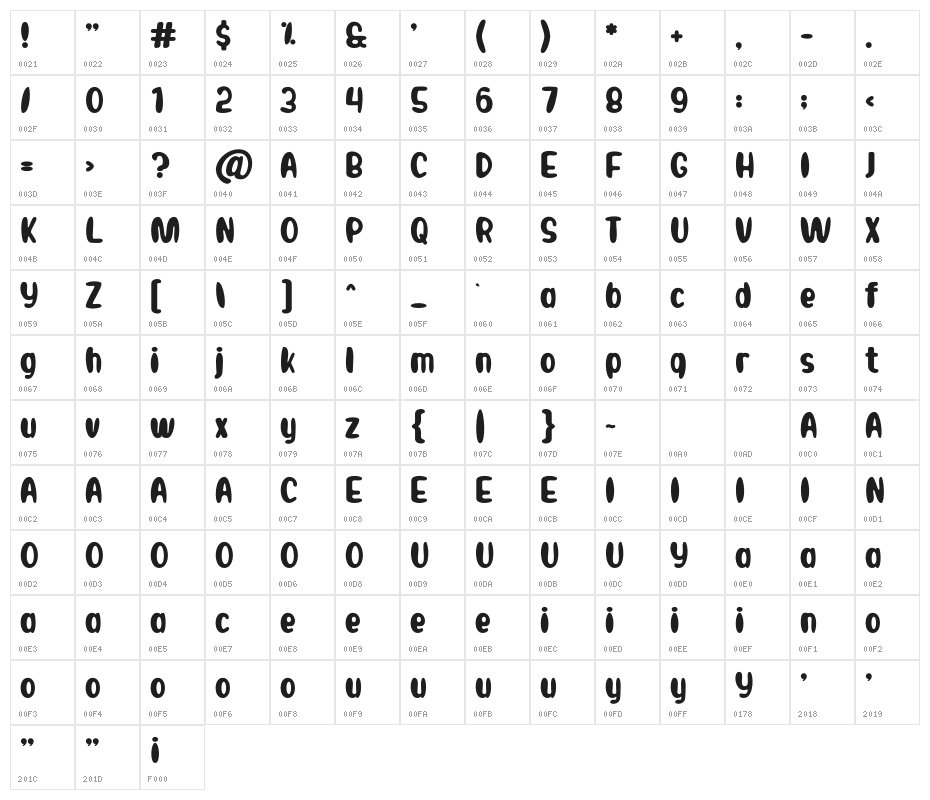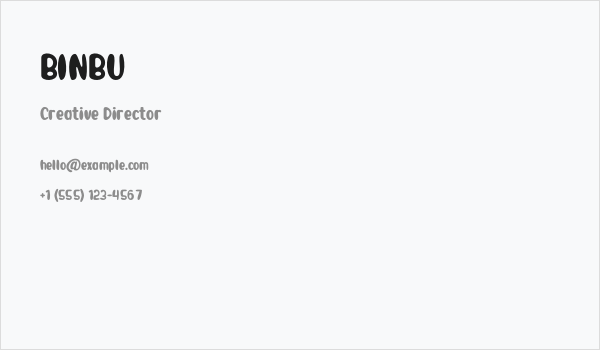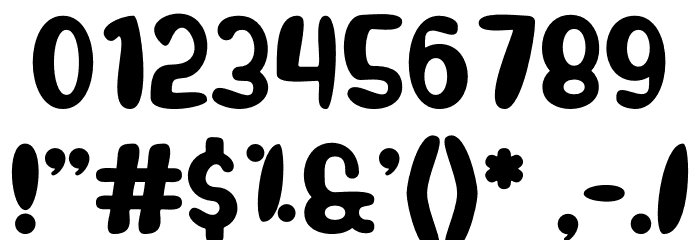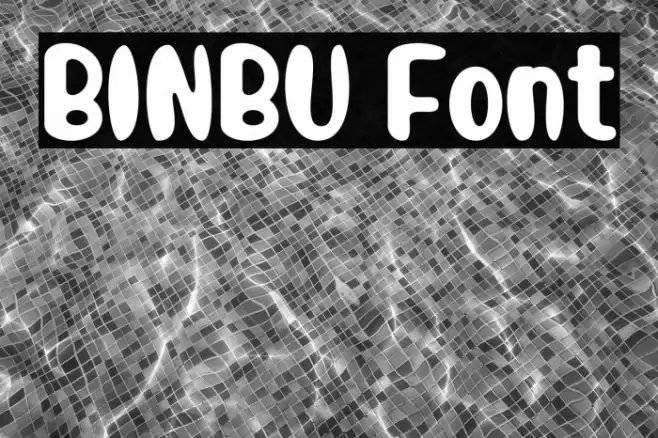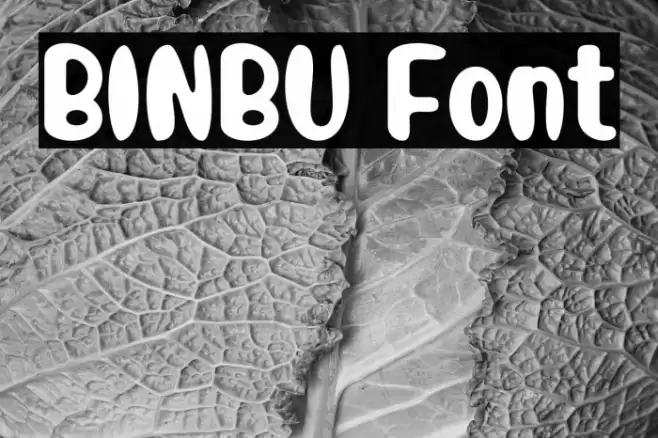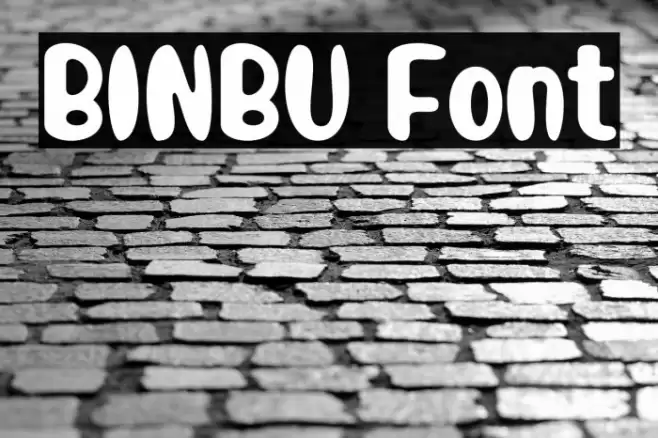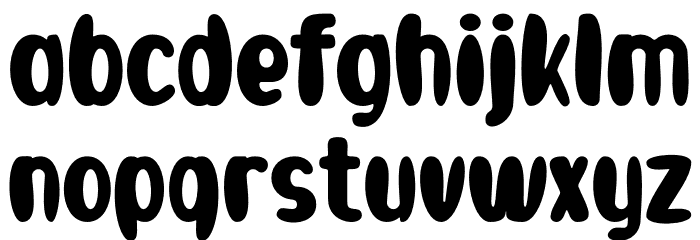
BINBU Font
BINBU Description
This playful and bold font features rounded, bubbly characters that exude a sense of fun and whimsy. The letters are thick and have a uniform stroke width, giving them a bold presence on the page. The rounded edges and slightly irregular shapes add a touch of informality, making it ideal for creative and casual applications. The numbers and special characters maintain the same playful style, ensuring consistency across all text elements. This font is perfect for projects that require a friendly and approachable aesthetic.
| Overall Style | Playful, Fun |
| Proposed Projects | Ideal for children's books, playful branding, party invitations, and casual social media graphics. |